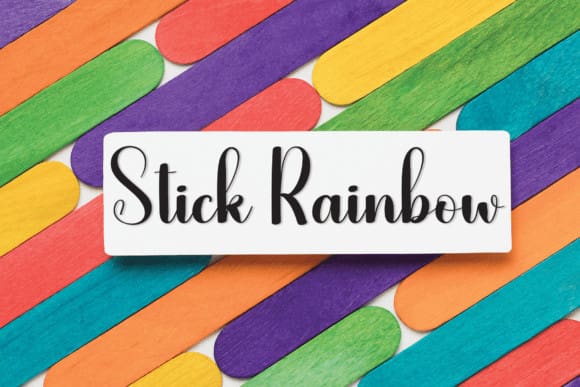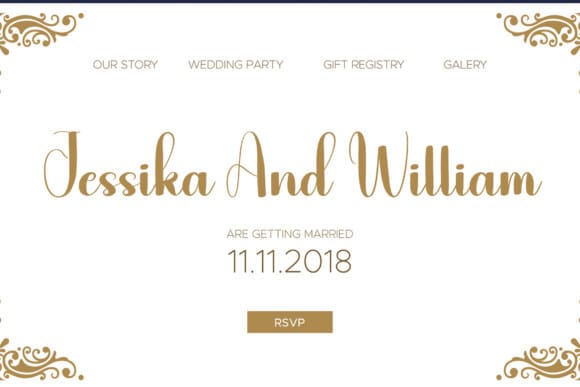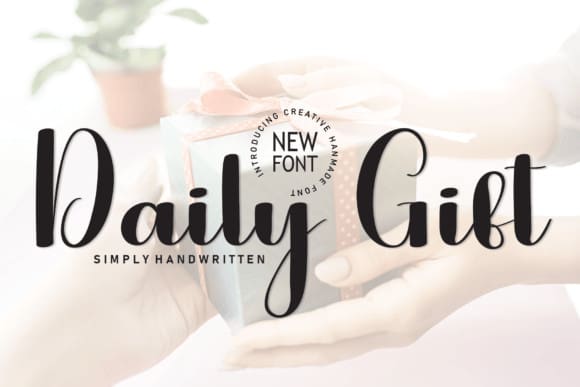
Daily Gift Font
Daily GIft Font is a delicate and elegant handwritten font. Its distinct and well-balanced letters make this font a masterpiece. Fall in love with its incredibly versatile style and use it to create spectacular designs!